Cinketype
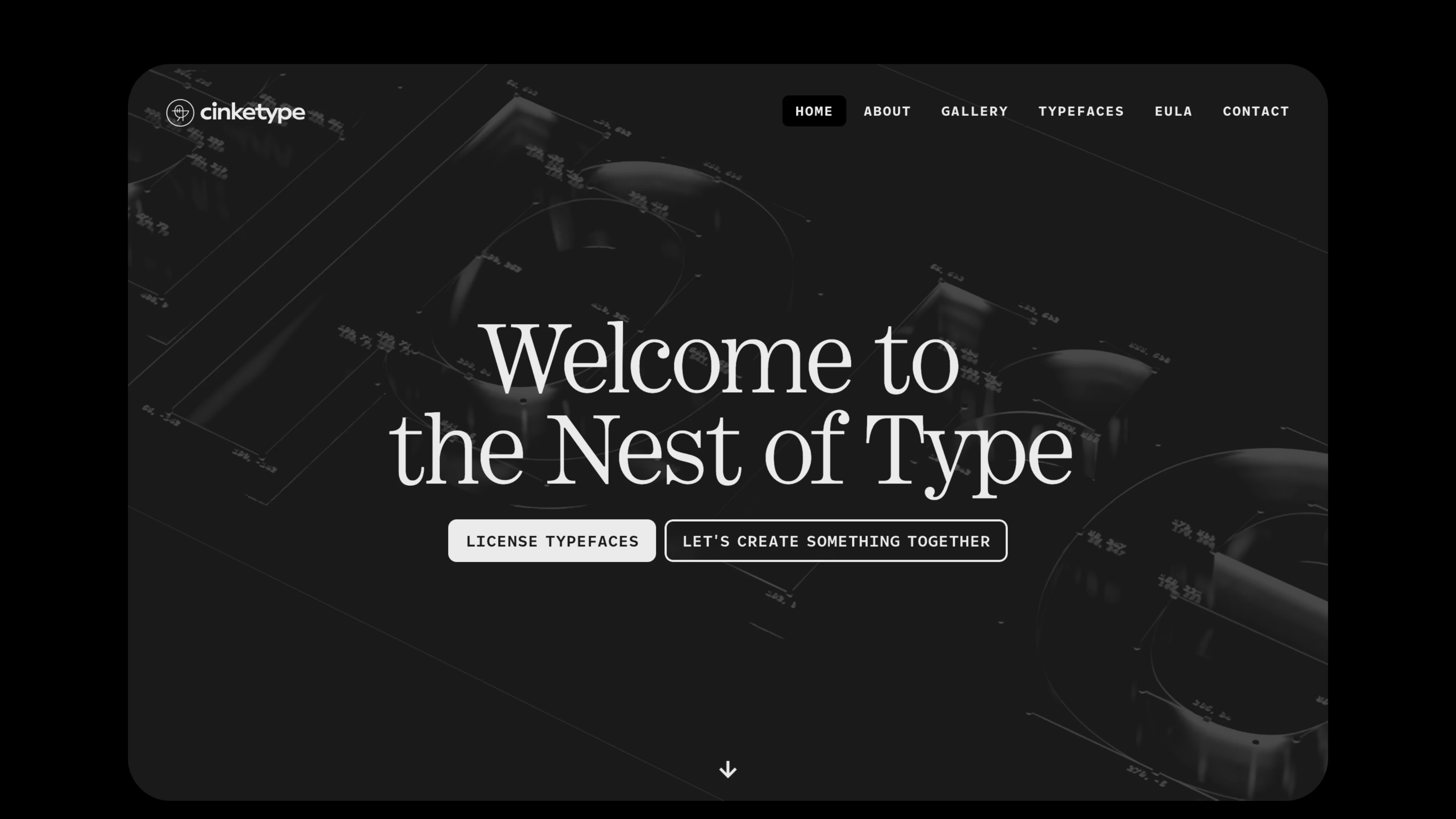
Hungary
Cinketype is a Hungarian design company specializing in type design, typography, graphic design, branding, lettering, and education. Led by type designer Tibor Szikora, who has over a decade of experience, Cinketype is known for creating custom typefaces and lettering that blend functional aesthetics with distinctive elegance. Notable typefaces include 'Kass', 'Kertész', and 'Bodoni Recut'.